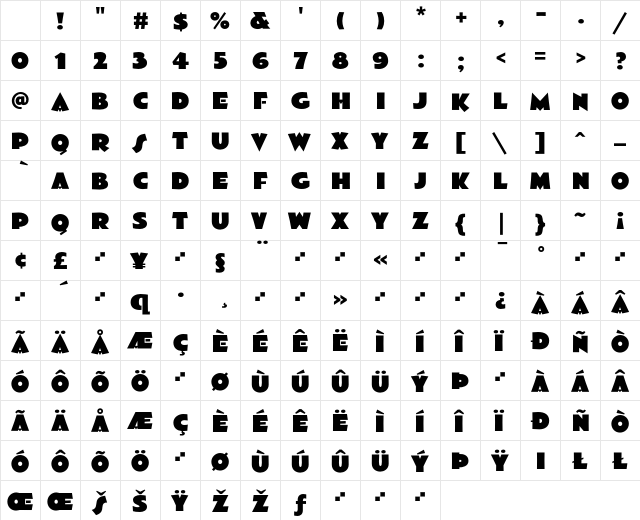
Complete Poster Black glyph index. Displaying only characters natively supported by Poster Black font.
Poster is a composed and adaptable typeface that performs quietly and consistently across a wide range of design contexts.